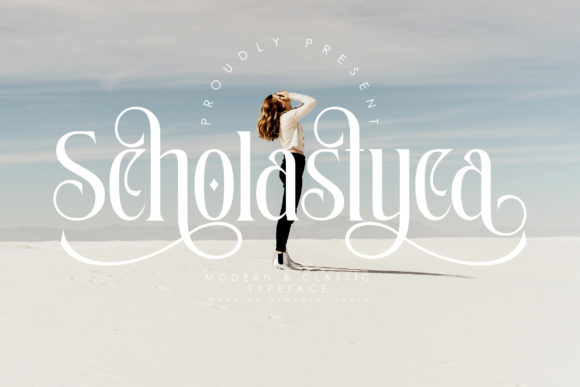
Behold Scholastyca, the font that transcends the ordinary, inviting you to embark on a design odyssey like no other. Crafted by Almeera Studio, a name synonymous with typographic brilliance, Scholastyca is a modern serif font that strikes a perfect balance between thin and thick, a symphony of curves and angles that dances across the page.
Scholastyca is not merely a collection of letters; it's an artistic expression that elevates your designs to new heights. Its characters, meticulously shaped and polished, exude a sense of luxury and sophistication, ready to transform your creative visions into masterpieces. Whether you're crafting logos, branding materials, website designs, or any other visual medium, Scholastyca will infuse your projects with an aura of elegance and distinction.
With its generous character set, including uppercase and lowercase letters, numerals, and a wide range of punctuation marks, Scholastyca empowers you to weave intricate typographic tapestries. Its multilingual support opens up a world of possibilities, allowing you to communicate your message to a global audience with effortless grace.
Say goodbye to mundane fonts that blend into the background. Scholastyca is a bold statement, a declaration of your discerning taste and unwavering commitment to excellence. Embrace this font and watch as your designs command attention, leaving an indelible mark on the minds of your audience.
Scholastyca is more than just a font; it's an experience. It's the feeling of pride when you see your designs come to life, the satisfaction of knowing that you've created something truly special. It's the joy of expressing yourself through typography, knowing that your message is being conveyed with the utmost clarity and impact.